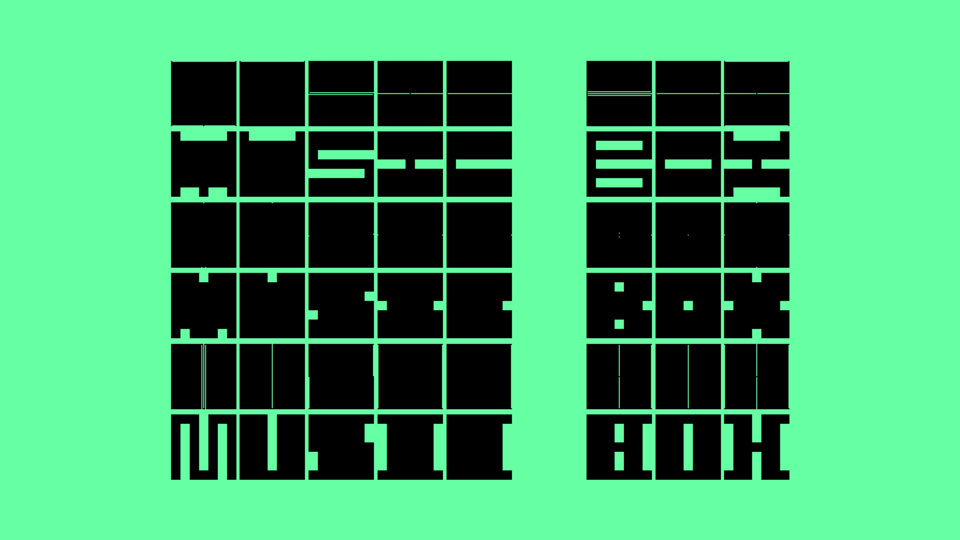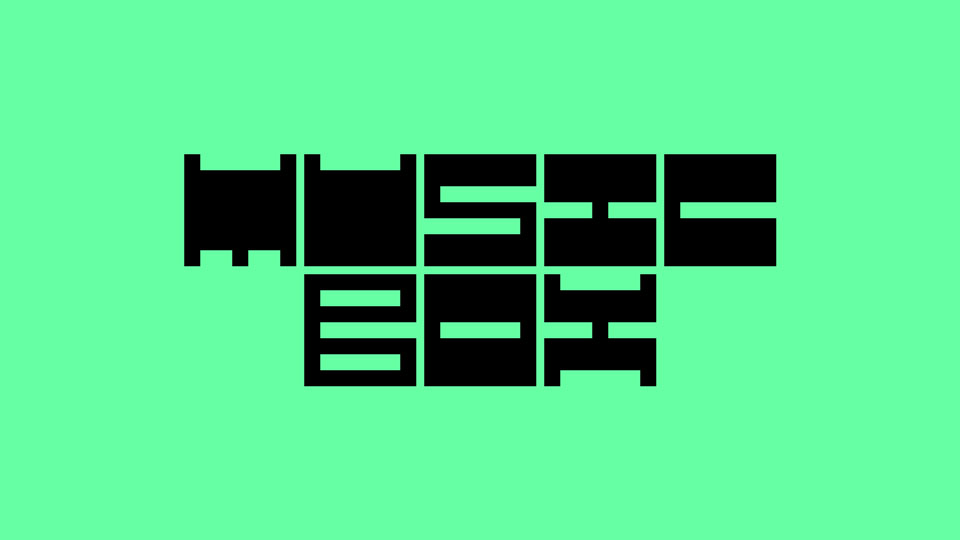
Music Box Font
Music Box is a variable font with two axes: “Amplitude,” for the size of each letter’s negative spaces, and “Frequency,” for the direction of those negative spaces. I’ve made a few fonts that explore that kind of directionality (looking at you Mini Mochi), but I thought it’d be fun to connect this idea to a musical concept.